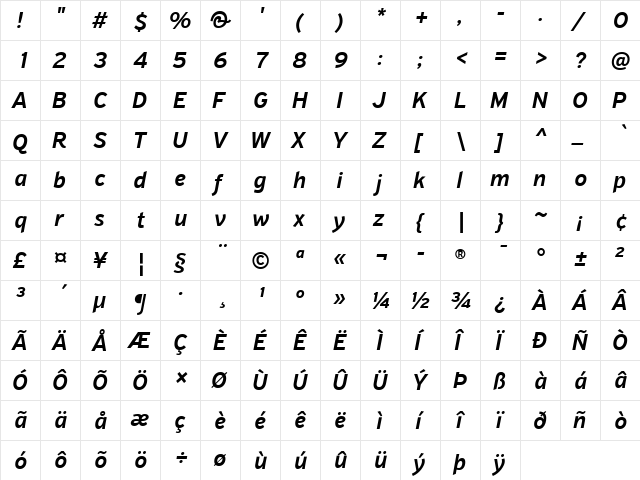
PF Highway Sans Pro Medium Italic
Design Context for PF Highway Sans Pro Typeface
PF Highway Sans Pro takes a measured approach to typography — its balanced proportions and neutral character make it a reliable workhorse for both digital and print work. Its italic angle brings a sense of urgency and motion to the letterforms.
Pro Tip: Try PF Highway Sans Pro for annotation and caption copy alongside an upright companion — the contrast in angle creates a dynamic but ordered typographic system.